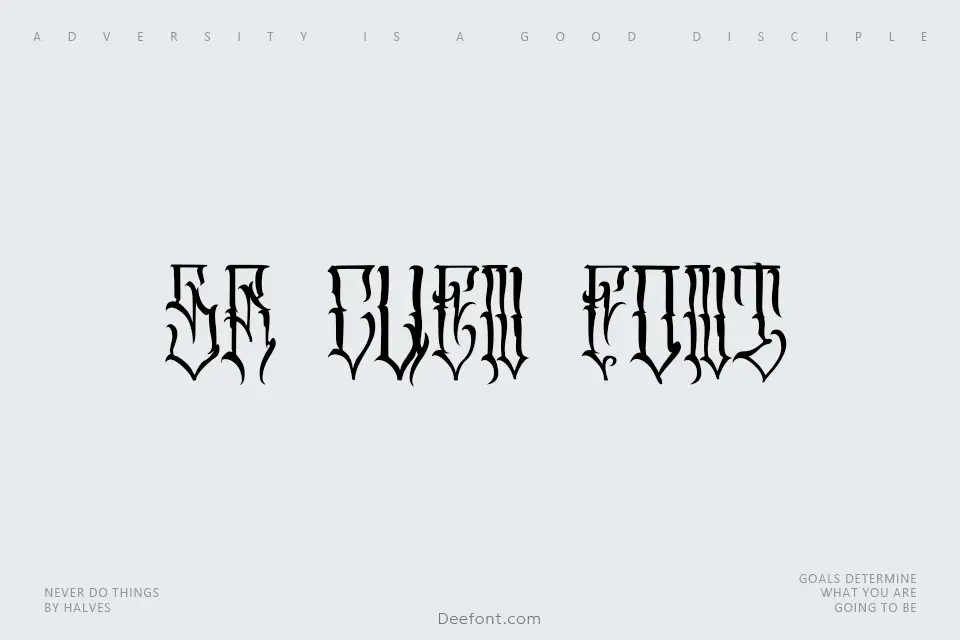
SR Cuen Font
The SR Cuen Font is a vibrant and dynamic graffiti-inspired script typeface that brings urban energy and creative flair to any design project. Perfect for headlines, branding, posters, and street art applications, this font captures the authentic essence of contemporary graffiti lettering with bold, expressive characters. Its distinctive hand-drawn style makes it ideal for projects requiring a unique, eye-catching aesthetic that stands out in the digital landscape.